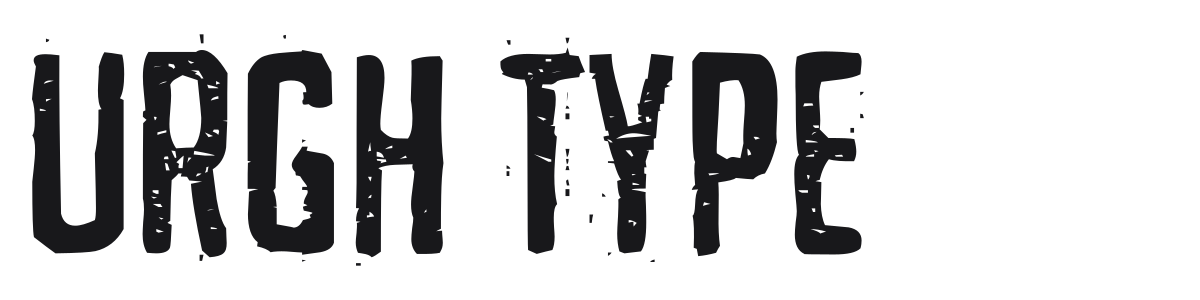
Urgh Type
Urgh Type is a bold, condensed grunge face from Billy Argel with rough, beaten-up letterforms that look like they were pulled off a wheat-pasted wall. The narrow uppercase characters carry a lot of density despite the distressing, giving headlines and poster text a raw, physical presence. It thrives at large sizes where the gritty texture and tight proportions can do their thing.